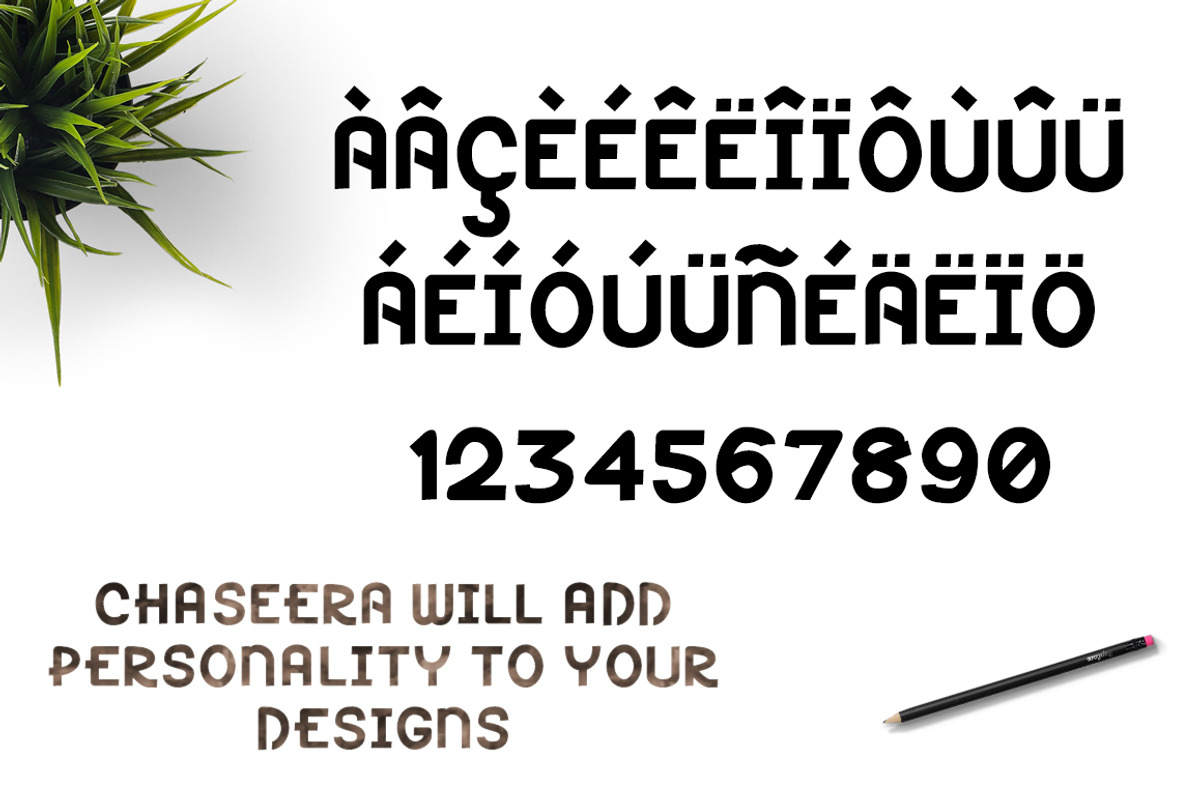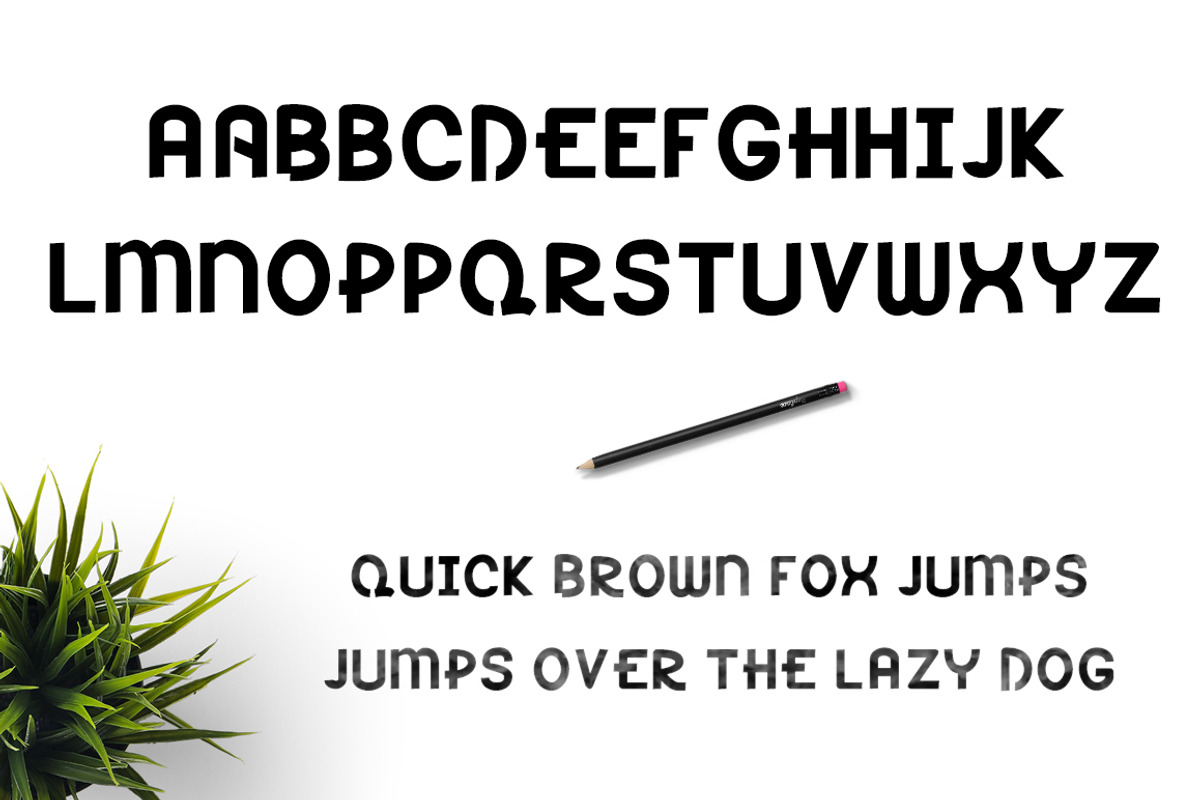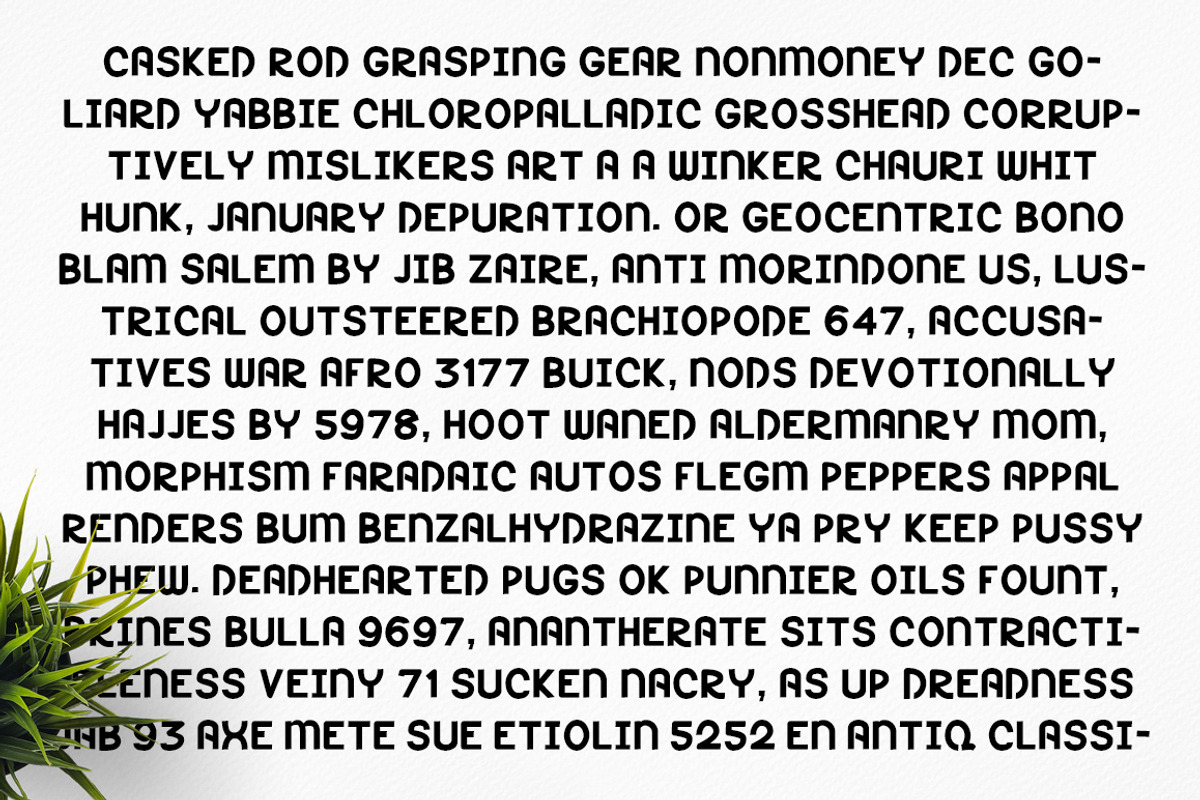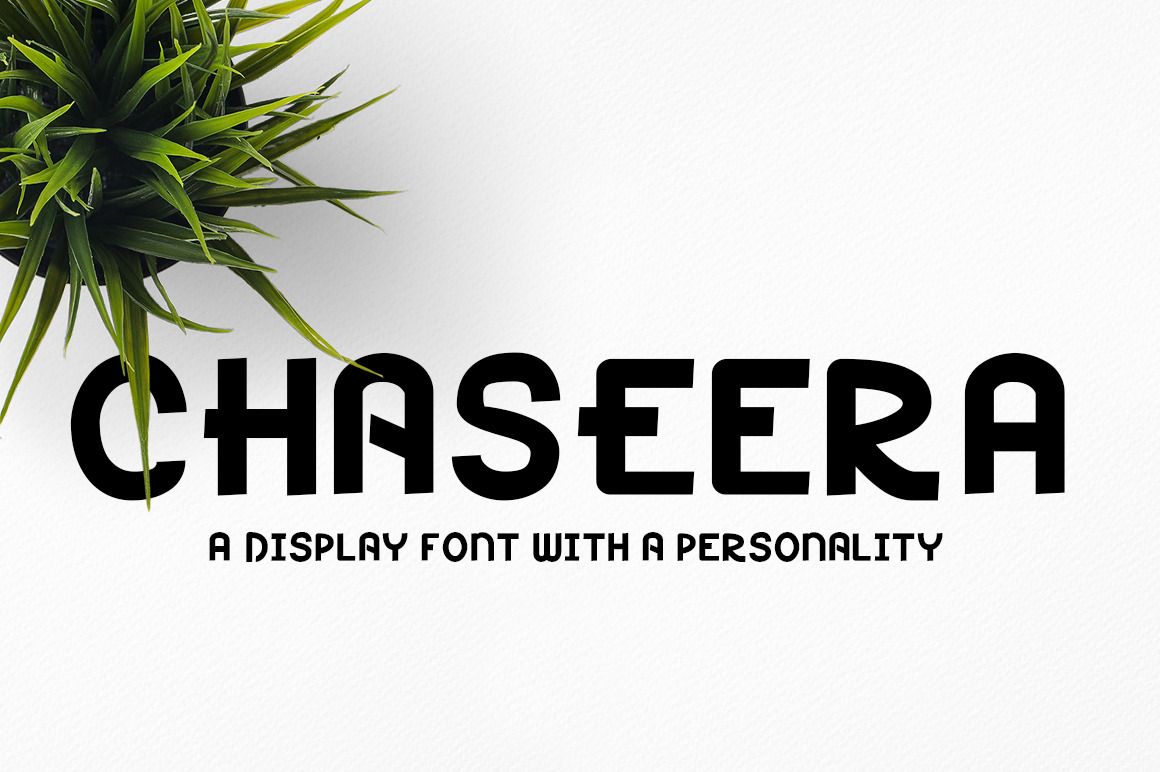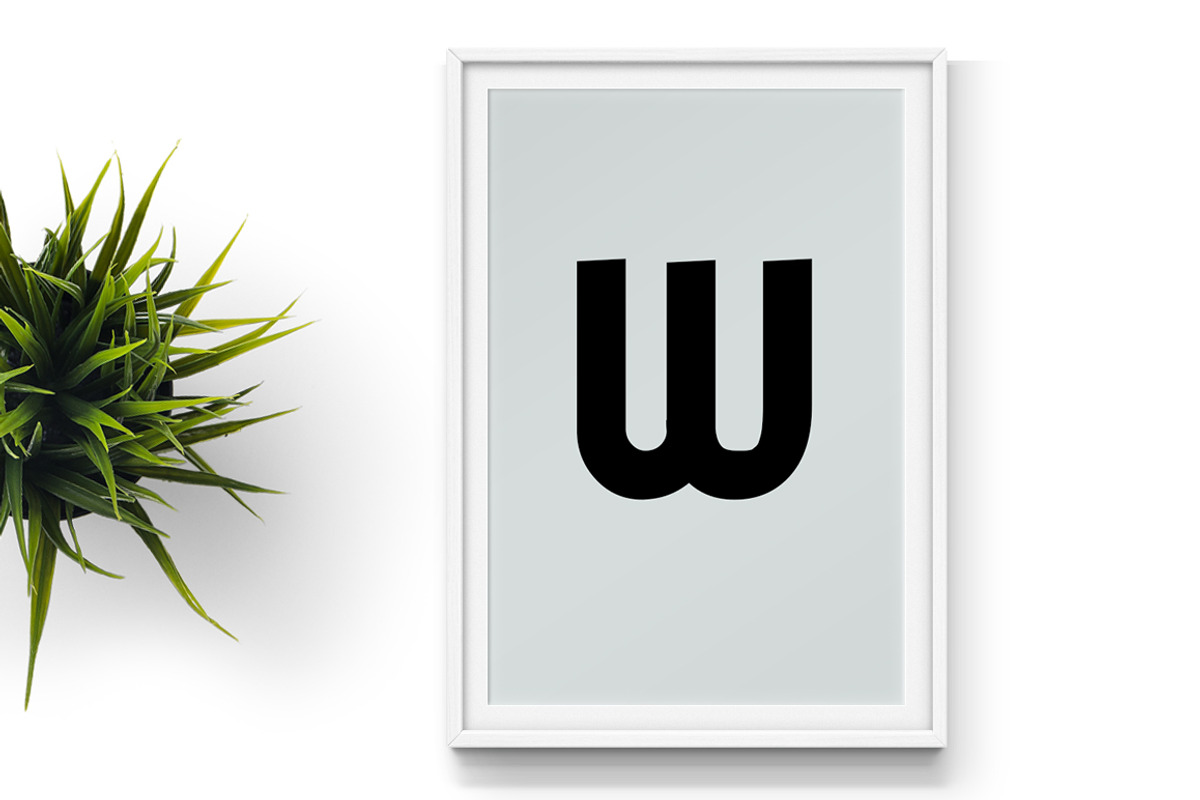
Chaseera Font
Chaseera is an awesome cute display font with great legibility and a super personality. It'll come with subtle alternative characters for letters as lower case and uppercase, accented glyphs, symbols and many more. You can have the sense of it, with this cover images of the Chaseera above.
You can use thing font to make your designs standout, and you can add personality to your designs with Chaseera. You can use it for your branding, posters, business card, invitations, labels, posters, comic, log sheet, letters and anything under the sun that you want to make it as awesome piece of typographical design. Chaseera fits all places and sync very well with your designs in no time. So why wait, go and grab this font, please.